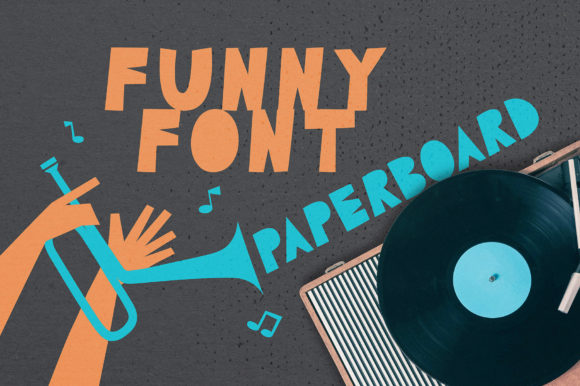
Introducing Paperboard Font, the modern classic display font that adds a touch of chic to your digital creations.
Step into the world of Paperboard, where sleek lines meet playful curves, creating a font that's both stylish and functional. Its bold presence commands attention, making it the perfect choice for eye-catching headlines, logos, and branding that leaves a lasting impression.
With Paperboard, the possibilities are endless. Craft captivating blog posts that draw readers in from the first word. Design logos that embody your brand's unique personality and make you stand out from the crowd. Create invitations, greeting cards, and planners that become cherished keepsakes, filled with warmth and personal style.
Whether you're a seasoned designer or just starting your creative journey, Paperboard is your go-to font for adding a touch of sophistication to your designs. Its versatile nature makes it the perfect companion for a wide range of projects, ensuring you always have the right tool for the job.
So why settle for ordinary fonts when you can elevate your designs with Paperboard? Its effortless charm and timeless appeal will add a touch of magic to your creations, making them truly unforgettable.
Unlock the power of Paperboard today and let your imagination soar. Experience the joy of creating with a font that inspires, captivates, and leaves a lasting impression.